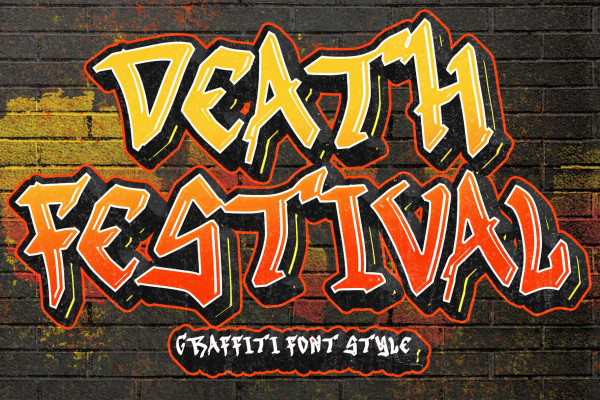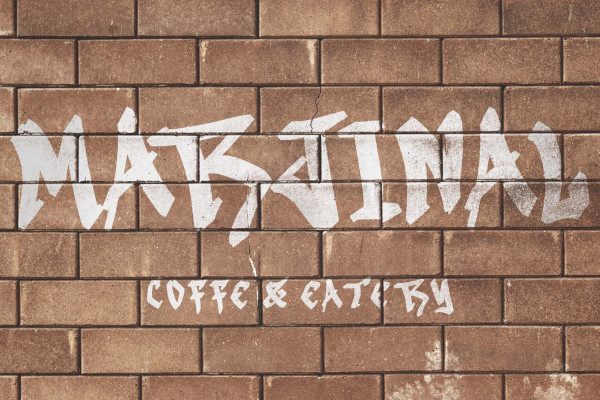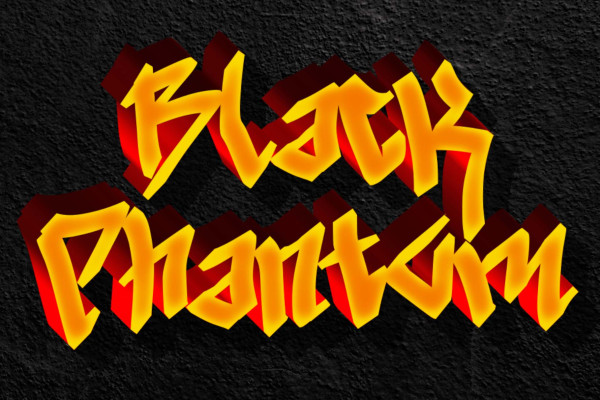
Death Festival Font
Death Festival Font is a unique and trendy graffiti font. This font contains uppercase, lowercase, numerals, punctuation, and multilingual support. It is very suitable for banners, posters, stickers, tattoos, wall street, wall art, murals, Christmas, Halloween, Valentine’s, and others.